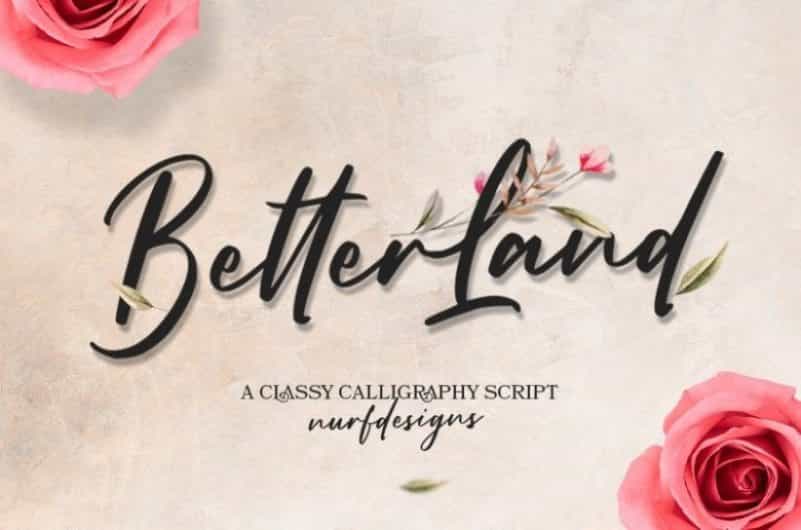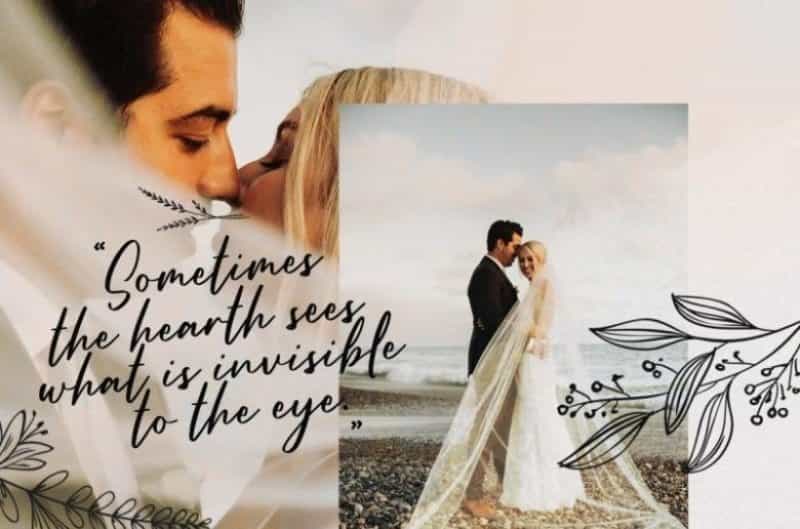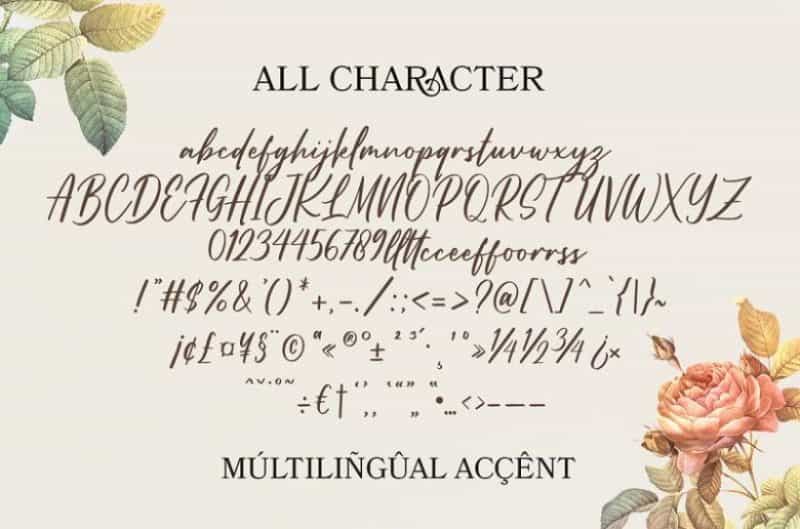
Discover Better Land Classy Script Font, part of the Calligraphy Handwritten collection—a versatile and unique font perfect for adding a personal touch to your projects. Download it for free and enjoy crafting designs with style, from invitations to social media posts. This font is available exclusively for personal use, giving you the freedom to create without limits. Unlock your creativity with Better Land Classy Script Font today!
Better Land Font, a modern forceful feel written from scratch font style. It’s perfect for byg e topics, signatures. Better Landis an uncomplicated font full of wealth and include tiptop uppercase and lowercase type, includes numerals and a currency sign.